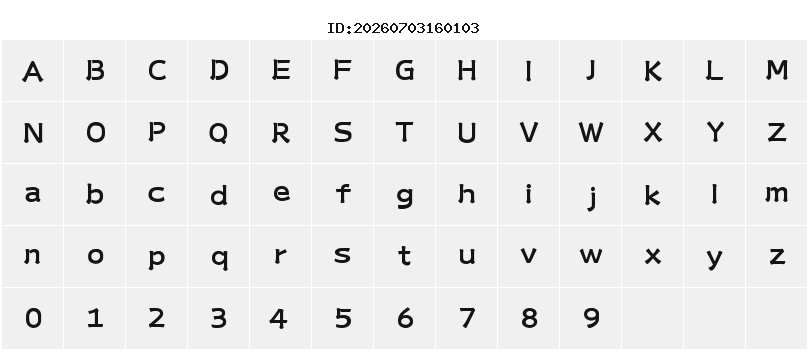
394-上首文渊体 Preview
• Font Name: 394-上首文渊体
• Font ID: 394-WenYuanTi:Version 4.00
• Full Font Name: 394-上首文渊体
• PostScript Name: 394WenYuanTi
• Manufacturer: 上首造字
About 394-上首文渊体.ttf
394-上首文渊体.ttf is a modern, elegant sans-serif font designed for ultimate readability and visual harmony. Perfect for branding, headlines, web design, and print materials.